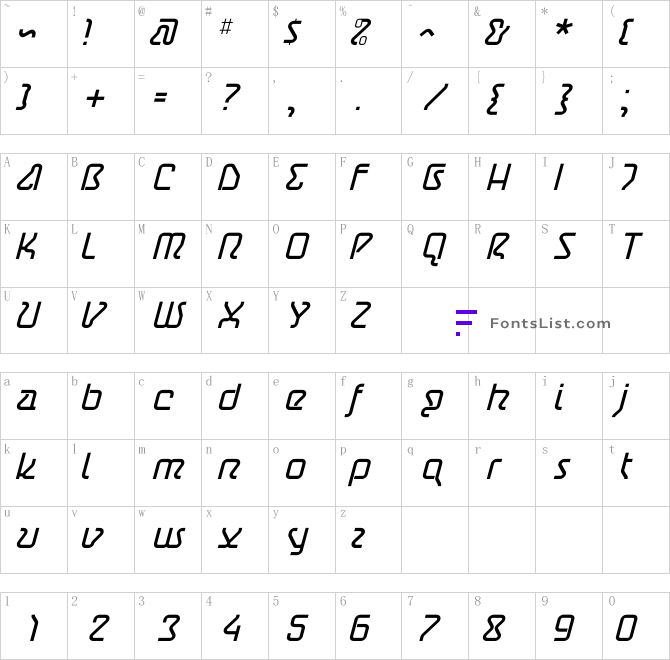
- Font Name:AstroLight Oblique
AstroLight-Oblique.ttf is a very beautiful artistic font, AstroLight-Oblique.ttf is widely used in the design and printing of various books and pictures,AstroLight-Oblique.ttf has a strong visual impact,AstroLight-Oblique.ttf is a commonly used font in newspapers, magazines and books, and is used in posters, e-commerce Poster design, store design, logo design, font design and other fields.AstroLight-Oblique.